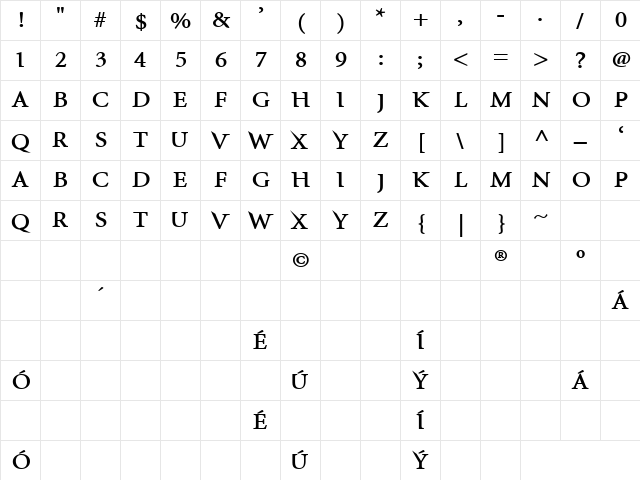
InfraRed ExtraBold
Designer: Zdenek Gromnica aka FutureMillennium
Design Context for InfraRed
InfraRed is a composed and adaptable typeface that performs quietly and consistently across a wide range of design contexts. Its bold stroke weight gives it real presence on the page.
Pro Tip: Use InfraRed in both headline and body roles to test its range before committing to a single application.